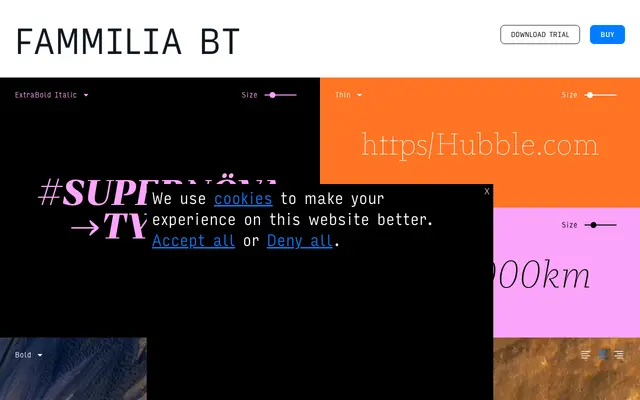
Fammilia BT specimen from Bastarda
A wide-ranging grotesque sans from Bastarda with nine weights and matching italics, aimed at editorial and identity work.
Spanning nine weights from Thin to Black, each with a matching italic, this grotesque covers the full spectrum of typographic weight needed for publication and branding projects. The specimen leans heavily on an astronomy theme, suggesting the family is positioned for editorial contexts where contrast between weights is the primary tool. Latin Extended coverage includes diacritics for Western and Central European languages.
The specimen and weight range suggest a contemporary grotesque sans-serif with a broad weight spectrum from Thin to Black, typical of neo-grotesque or humanist grotesque families aimed at editorial and branding use.